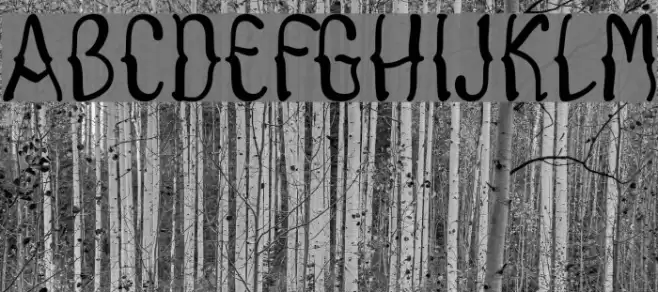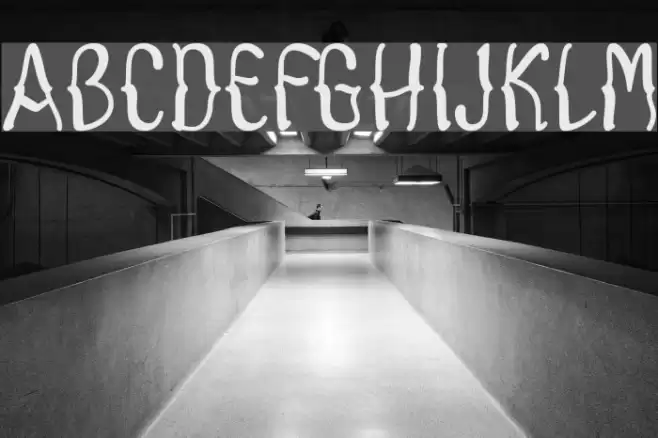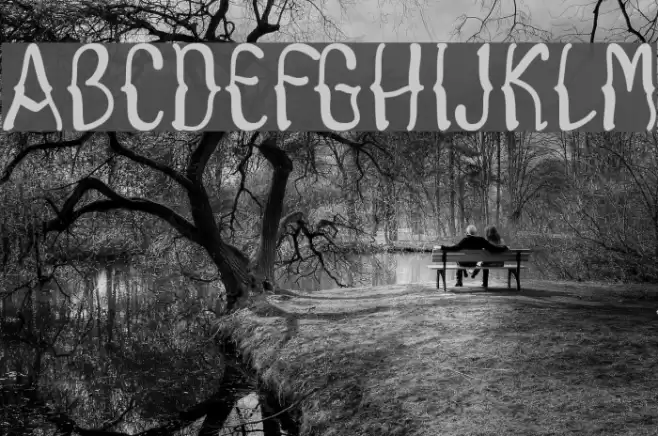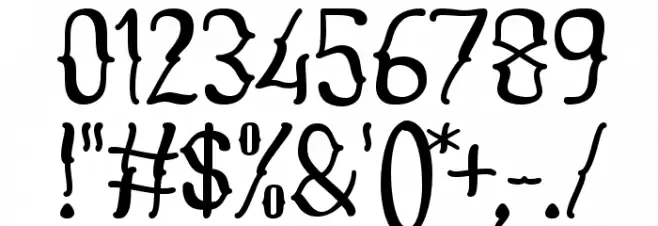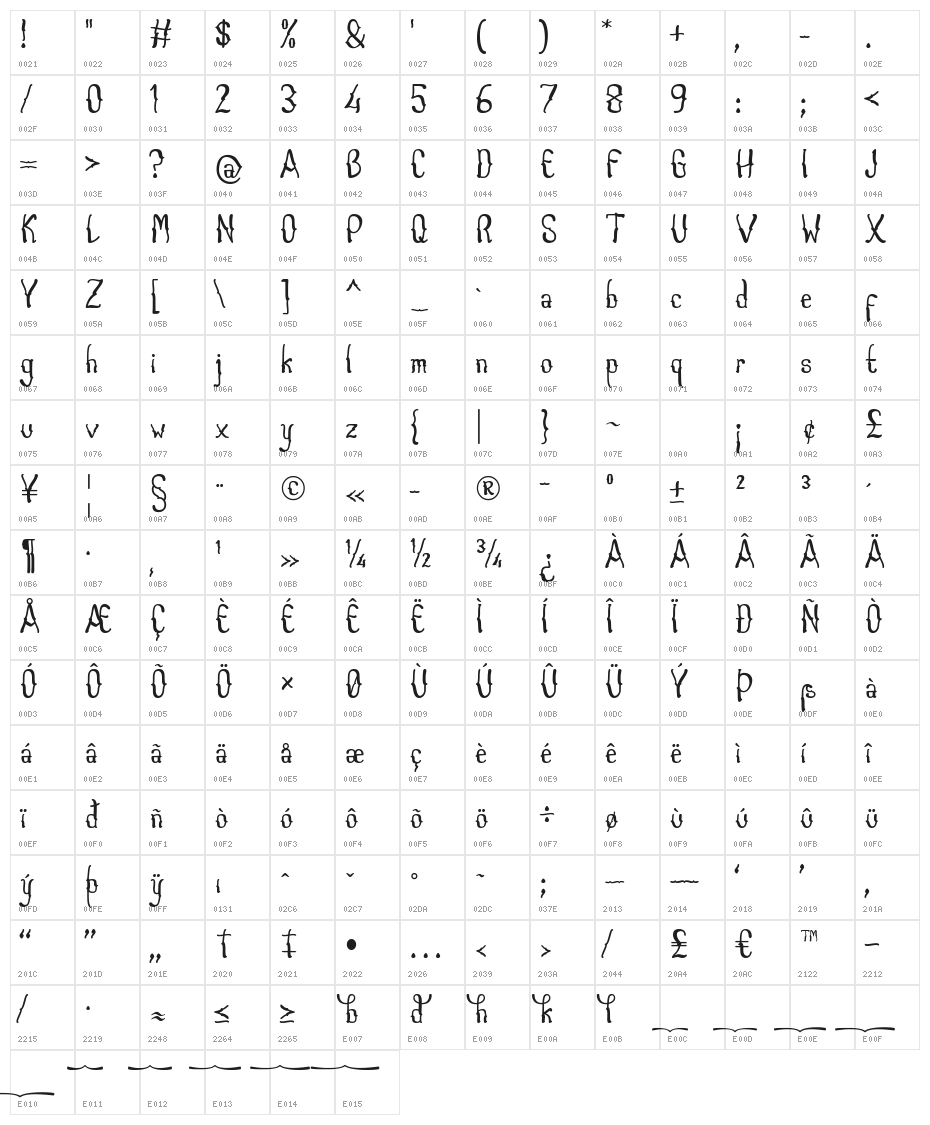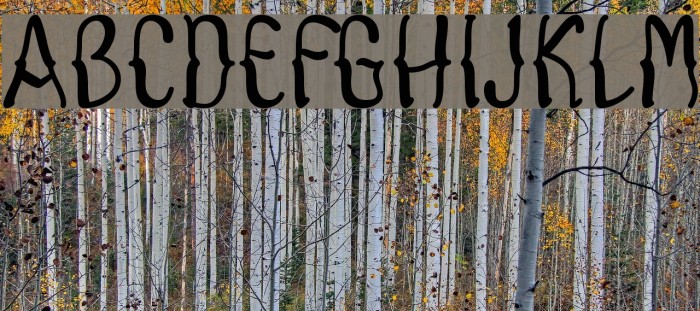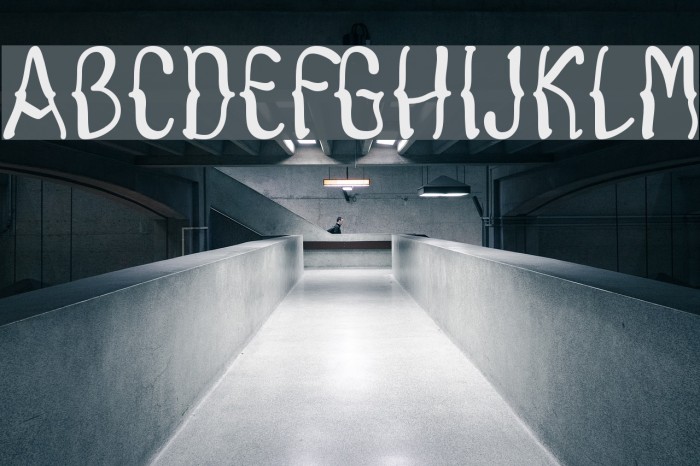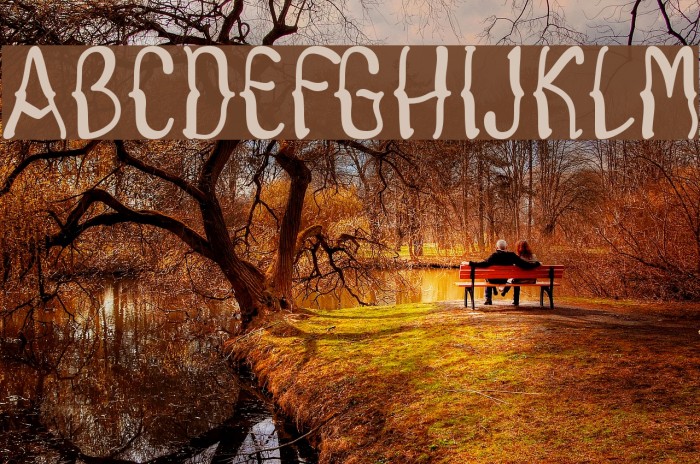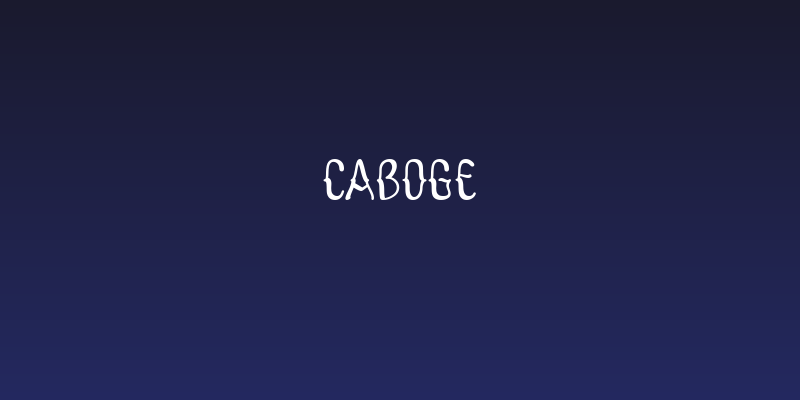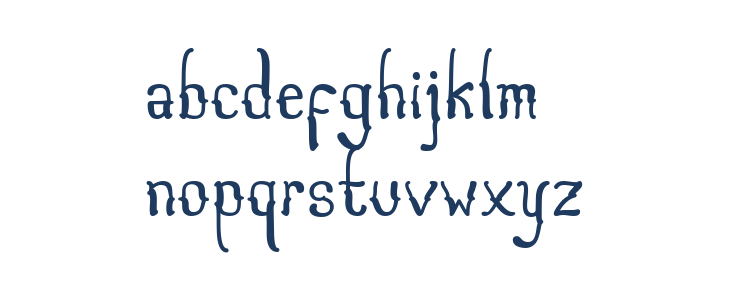
Caboge Font
Caboge Description
This font features a unique and artistic design with a hand-drawn appearance. The characters have a playful and whimsical style, characterized by uneven strokes and irregular shapes. The uppercase and lowercase letters maintain a consistent theme, with a slightly rough texture that adds to its charm. The numerals and special characters follow the same design principles, ensuring a cohesive look across all glyphs. This font exudes a sense of creativity and individuality, making it stand out in any design project.
A whimsical, hand-drawn font with playful, irregular strokes from Uncategorized fonts.
- Proposed Projects: Ideal for creative projects such as children's book covers, playful branding, artistic posters, and unique invitations.
- Overall Style: Artistic, Whimsical
- Use Case: Logos, Posters, Creative projects